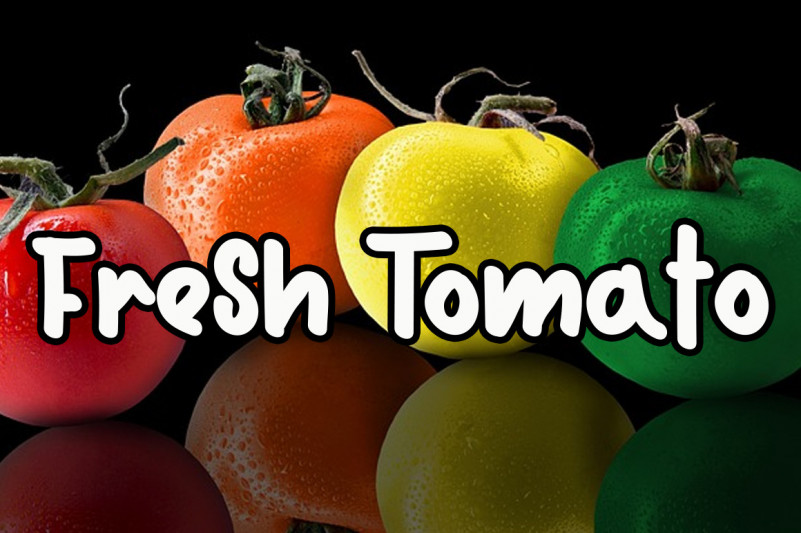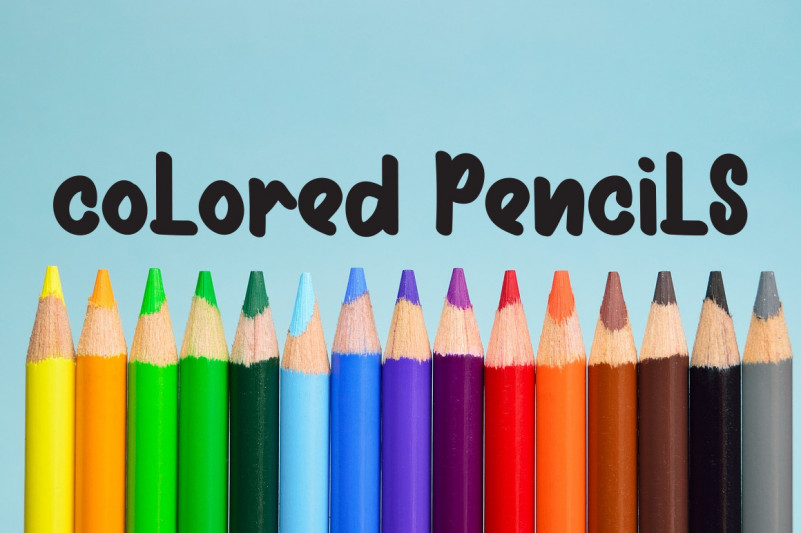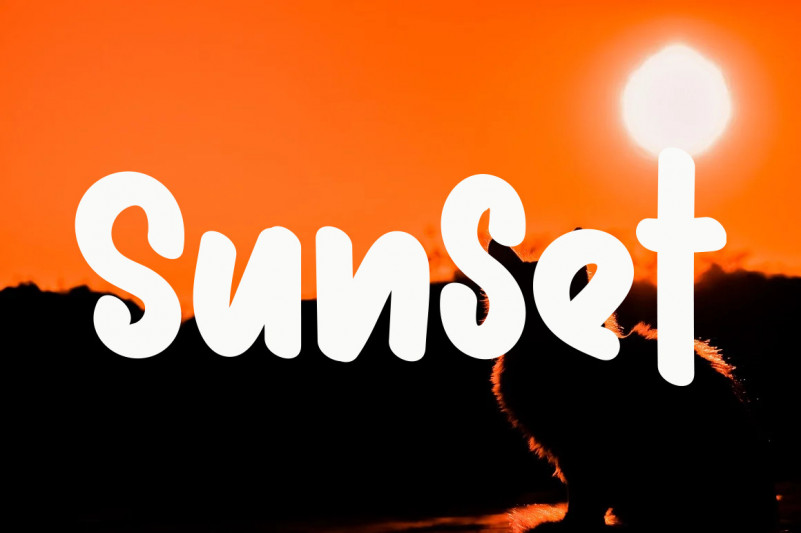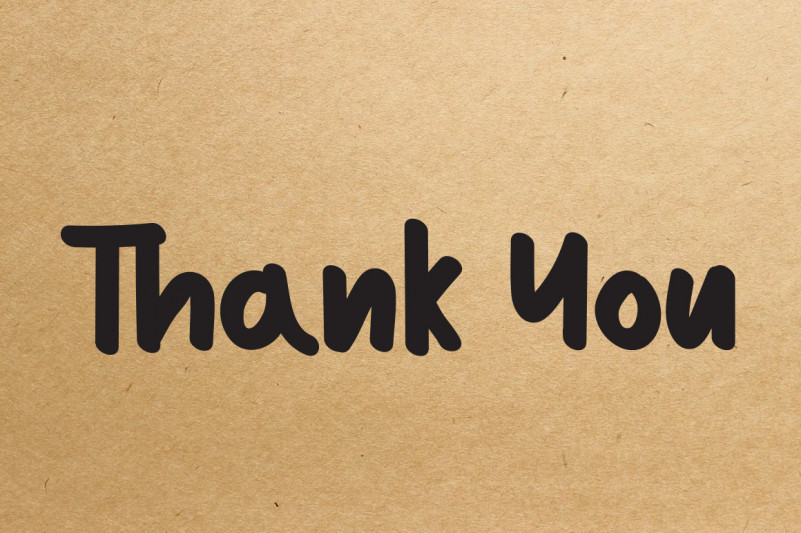
Summer Rainbow Display Font
This is a bold and friendly handwritten font. Use it to make your ideas even more realistic and create spectacular designs!